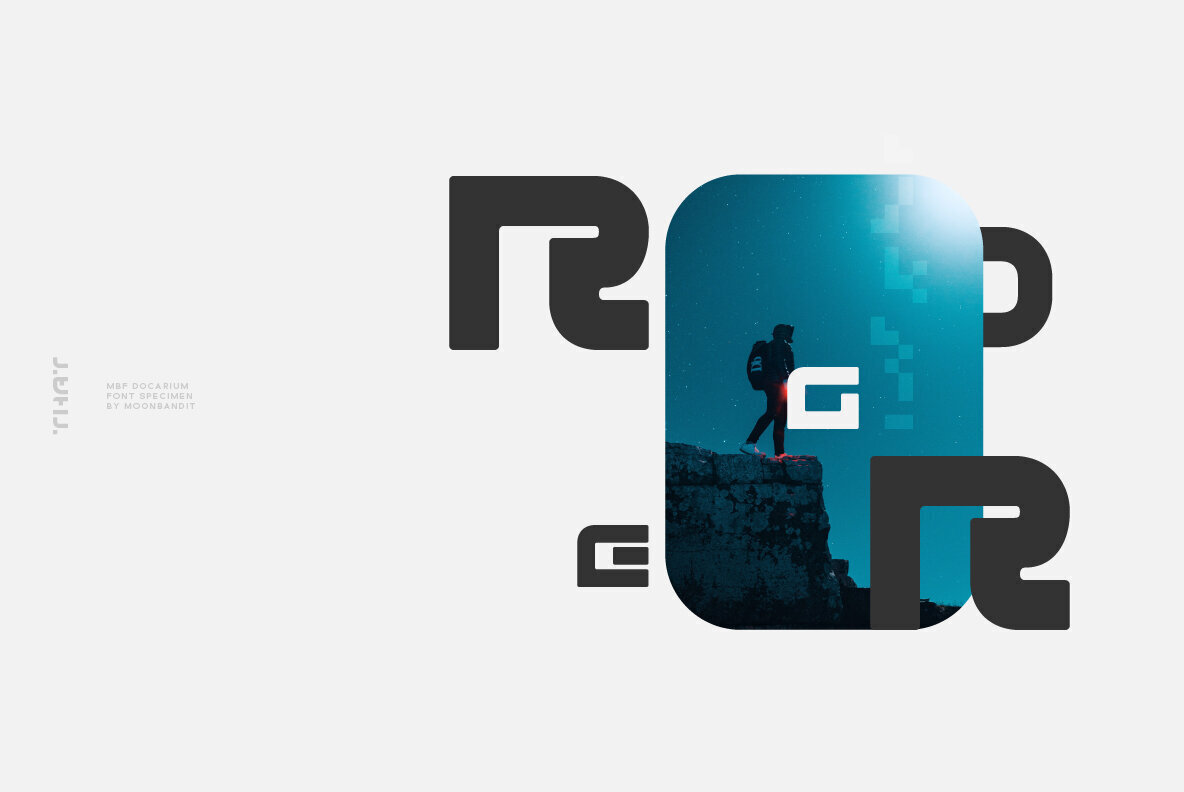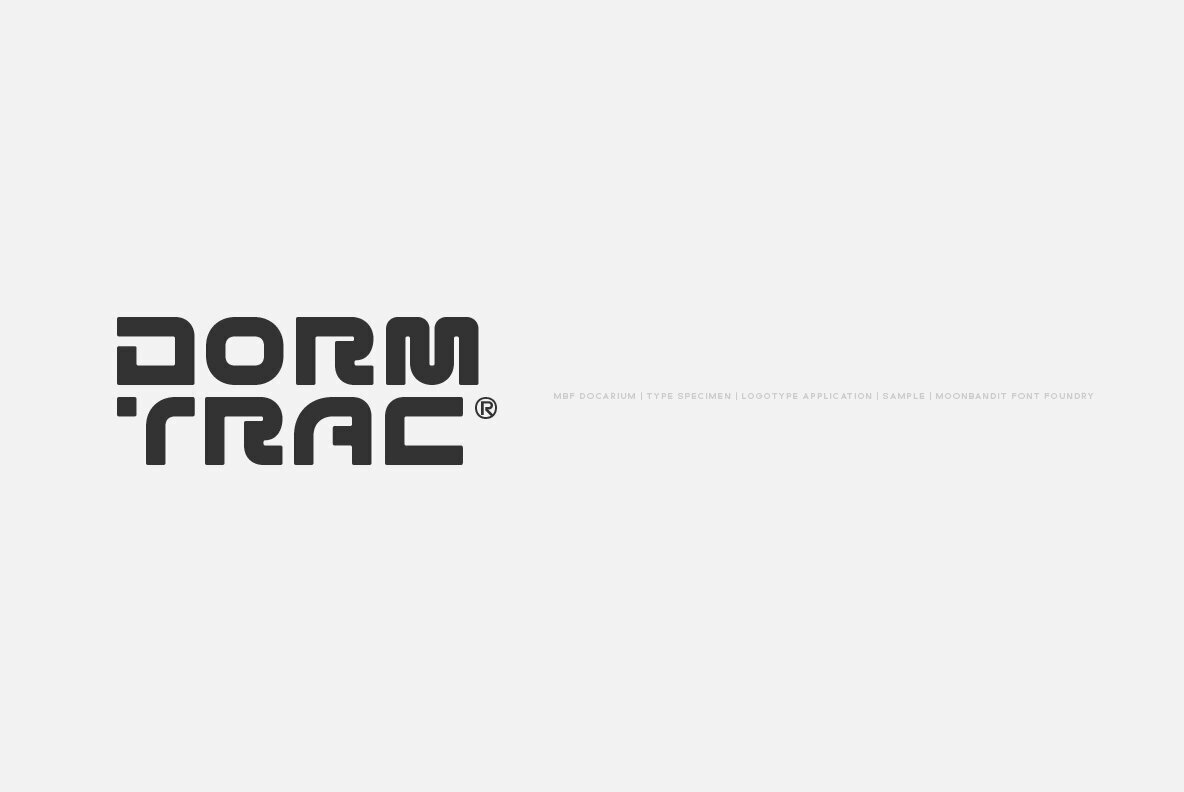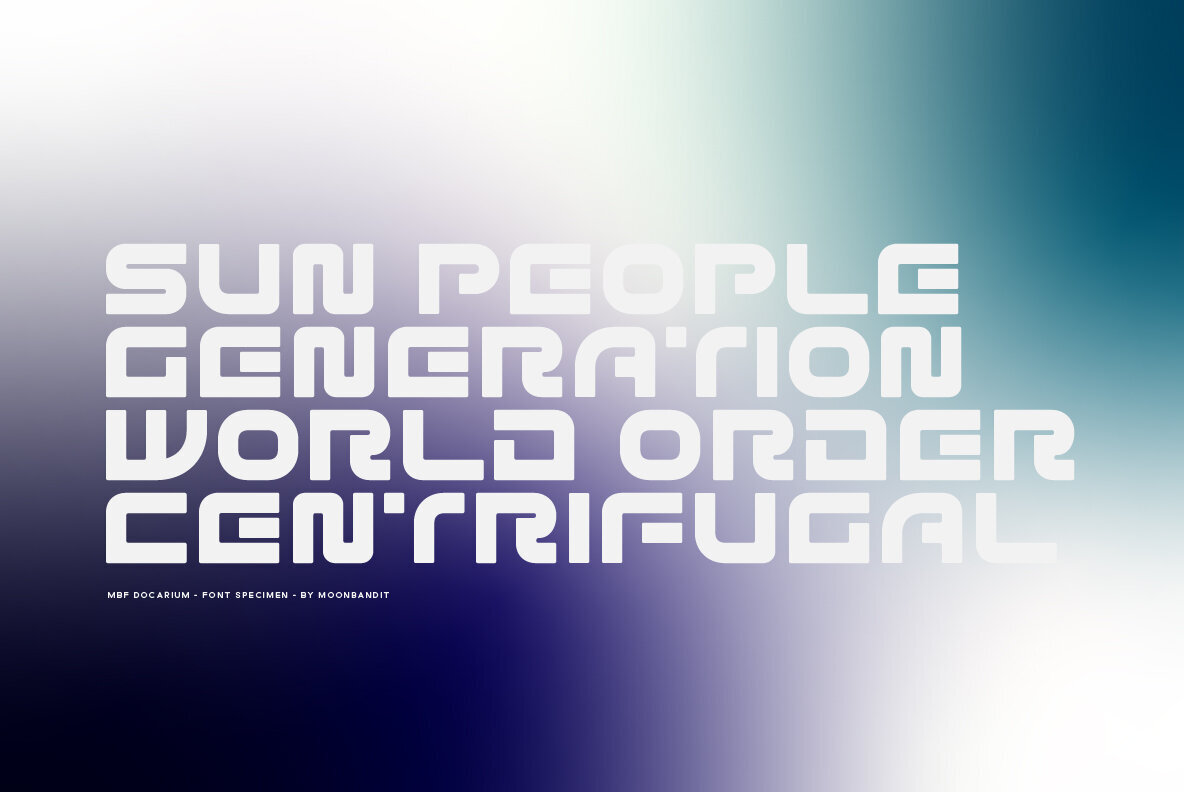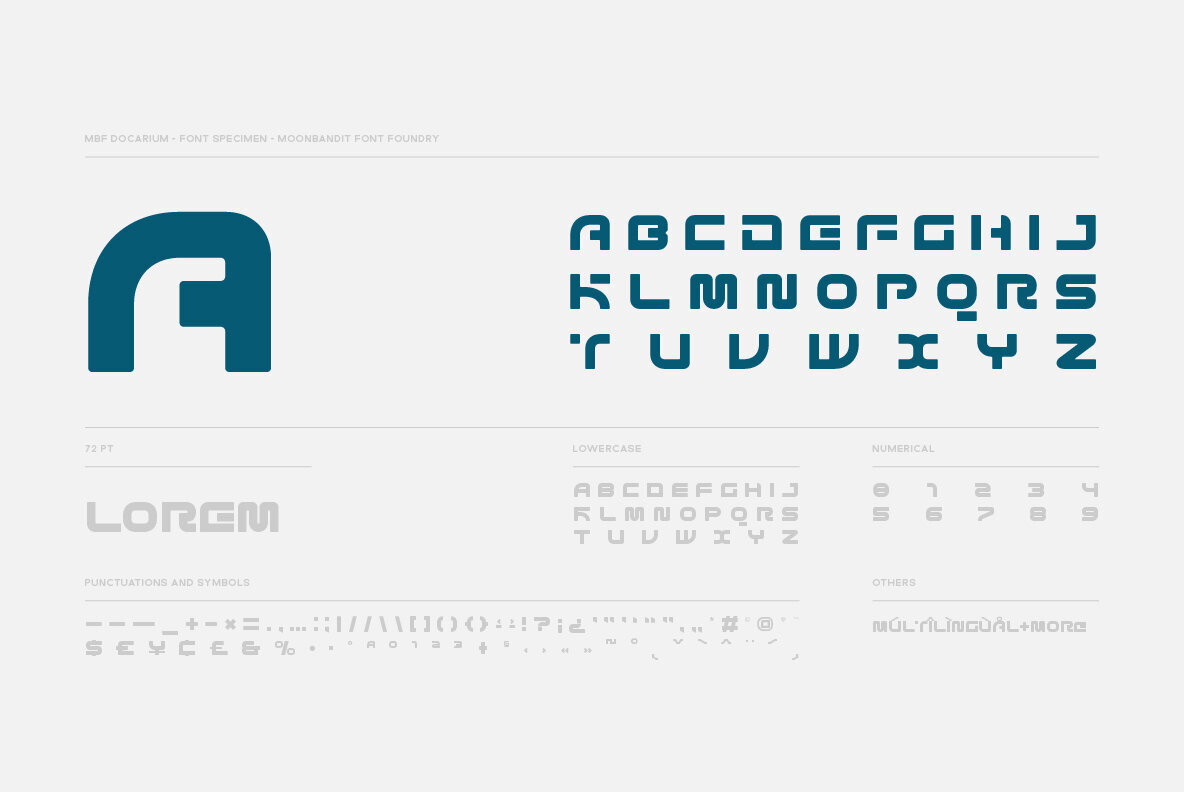
MBF Docarium Font
MBF Docarium
Docarium is a geometric modern minimalist sans serif display font. Wide and bold design gives this typeface a strong and dominant feel. Access the alternate glyphs by simply using uppercase and lowercase. Perfect usage includes logo, poster, display, headline, t-shirt design and many more.